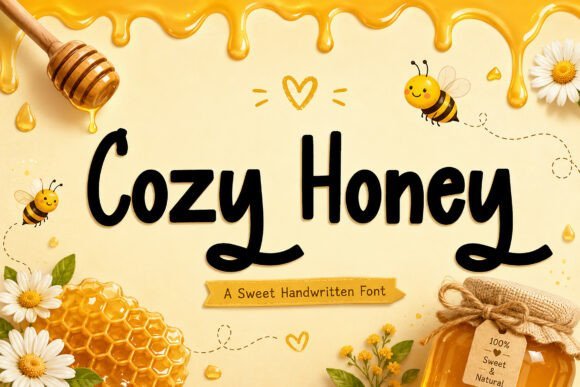
Unleashing the Sweetness of Cozy Design
You know that feeling when you’re brainstorming a new project, and suddenly, a spark of creativity strikes? Maybe it’s a sunny morning, a warm cup of coffee, or a burst of colorful inspiration that gets your imagination racing. For many designers, this spark can lead to some of their most creative and impactful work.
One font that embodies this sweet and playful spirit is the Cozy Honey Font. This charming handwritten display font is designed to evoke feelings of warmth, friendliness, and joy. Whether you’re creating a logo, branding, or packaging, the Cozy Honey Font adds a touch of whimsy and personality to your designs. Its handcrafted appearance and smooth curves make it a valuable addition to any designer’s toolkit.
Cozy Honey Font Key Features
- Font Family: Cozy Honey, with 6 styles (Thin, Light, Regular, Medium, Bold, Black)
- Character Count: Over 900 characters, including Latin, Cyrillic, and Greek scripts
- Unique Characteristics: Hand-drawn, whimsical design with a warm and inviting feel; ideal for branding, packaging, and advertising
Cozy Honey Font Review
Overall, I found the Cozy Honey Font to be a delightful addition to any design project. Its unique blend of whimsy and sophistication makes it perfect for creating eye-catching headlines and titles.
- ✨ Friendly and approachable feel: The Cozy Honey Font has a warm, inviting personality that immediately draws the viewer in.
- ✨ High legibility: The font is easy to read, even at smaller font sizes, making it perfect for use in body text.
- ✨ Customization options: The font comes with a range of styles and weights, allowing designers to experiment with different looks and feels.
- ⚠️ Limited versatility: While the Cozy Honey Font is great for certain projects, it may not be the best choice for more formal or professional designs.
- ⚠️ Some character limitations: The font may not support all languages or character sets, which could be a problem for international designs.
Overall, I would recommend the Cozy Honey Font to designers looking to add a touch of warmth and personality to their projects. While it may have some limitations, its unique charm and high legibility make it a great choice for the right projects.
Tips for Getting the Most Out of the Cozy Honey Font
Here are some tips to get the most out of the Cozy Honey Font:
- Use the font in combination with other fonts to create a unique and visually appealing design.
- Experiment with different font sizes and colors to create contrast and emphasis.
- Use the font to create a consistent brand identity across all your designs.